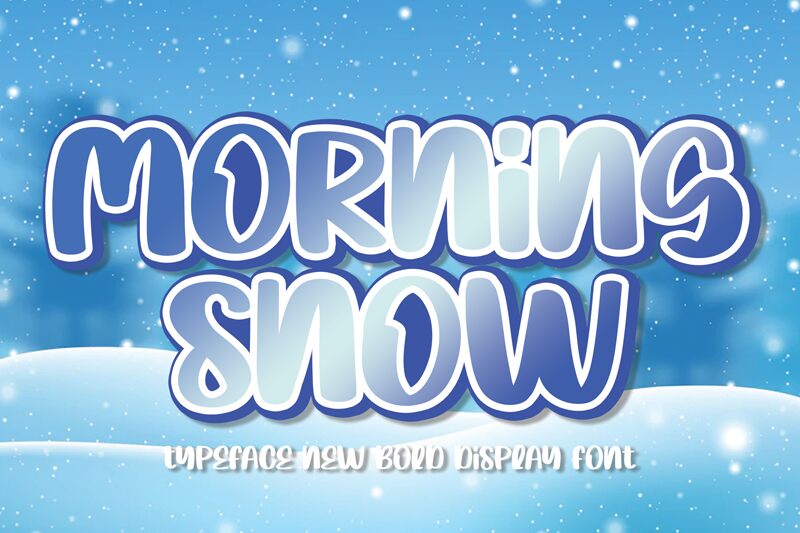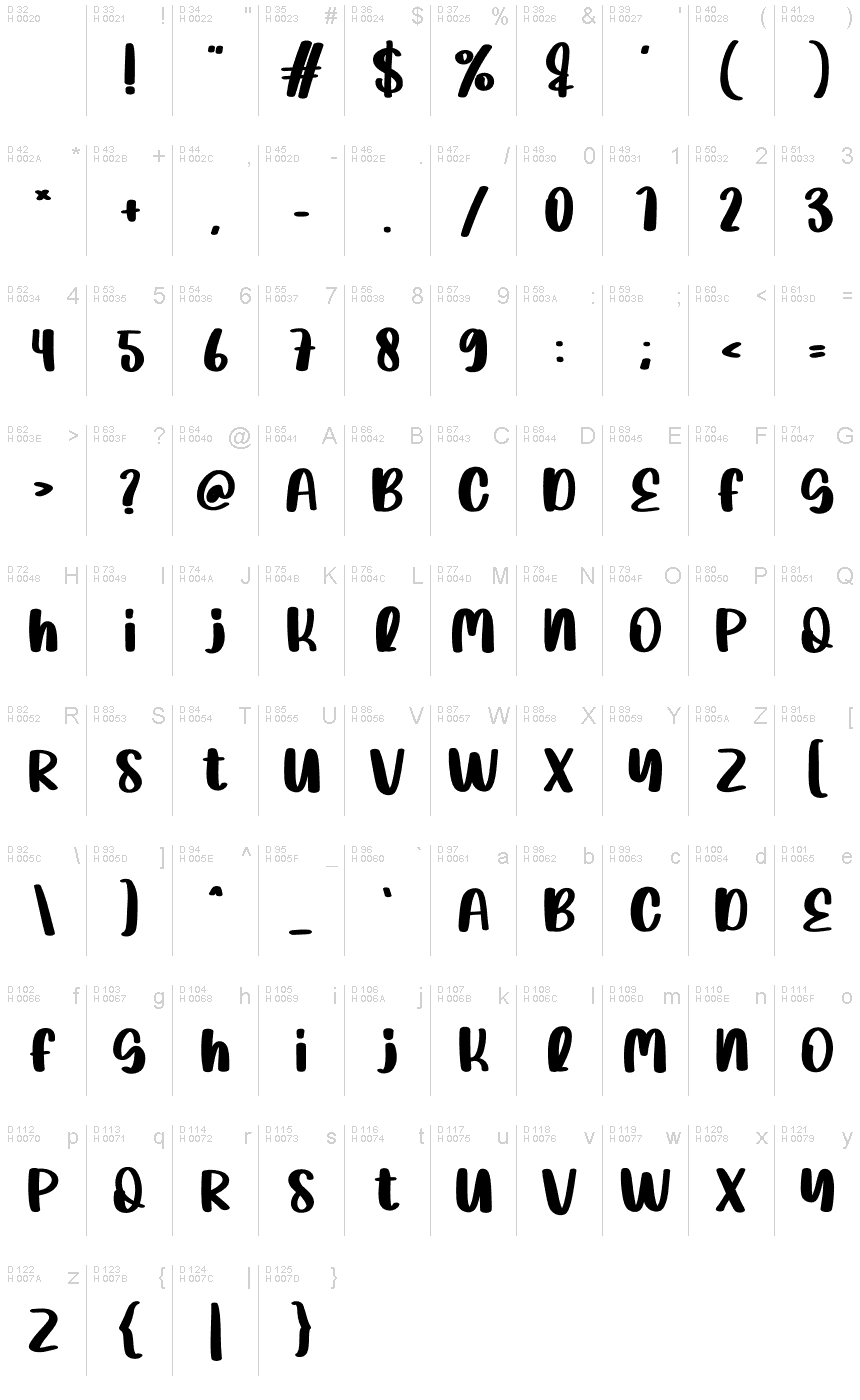
Morning Snow
Morning Snow, a bold handwritten font crafted by Scratchones, exudes a unique blend of personal touch and robust presence. Its sweeping curves and gentle line variations capture the essence of an artisan's hand-imperfect, yet full of character. The bold weight adds a striking visual impact that is both assertive and inviting, making it perfect for designs that seek to convey warmth and authenticity.
The aesthetic appeal of Morning Snow lies in its ability to marry informality with confidence. Each letter bears the hallmark of human touch, yet stands strong and unyielding on the page or screen. This duality makes it an excellent choice for creative projects ranging from book covers to branding materials, where a statement of approachability coupled with substance is desired.